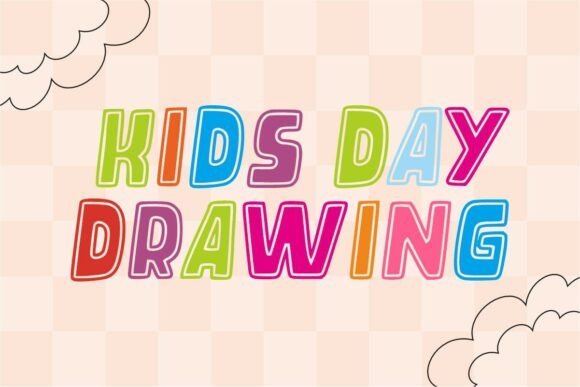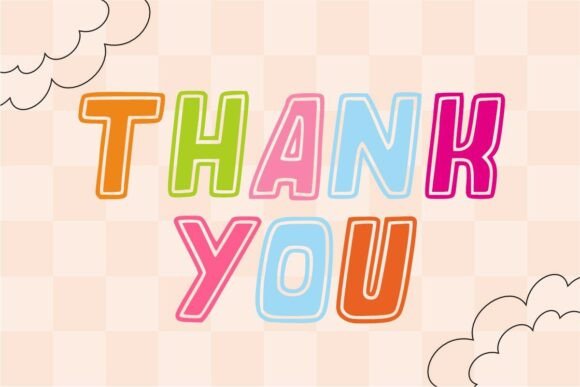
Introduction to Pena Draw Font
Discover the enchanting world of “Pena Draw,” a unique, contemporary font designed specifically for children.
Each character is full of personality, standing out with its distinctive motif, making it instantly recognizable ‘ This font perfectly complements a variety of projects, from adding an original touch to sublimation designs on children’s posters, apparel like t-shirts and tote bags, to bringing animated visuals or comic titles to life.
Key Features of Pena Draw Font
Why Choose Pena Draw Font?
Pena Draw Font offers exceptional quality and versatility, making it a valuable addition to your design toolkit. Whether you’re creating for personal projects or commercial use, Pena Draw Font delivers professional results.